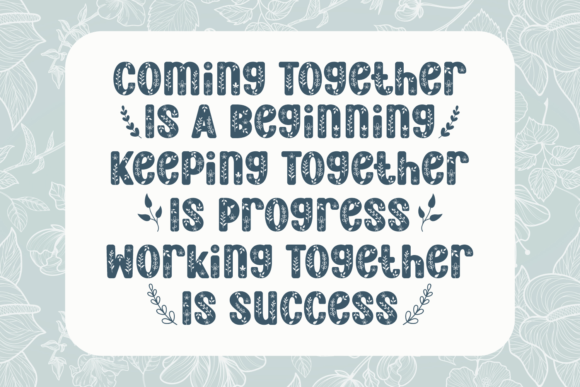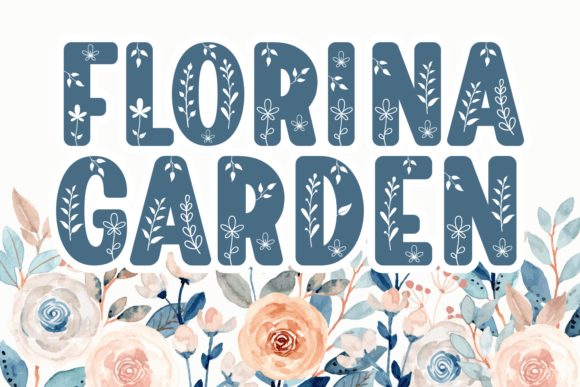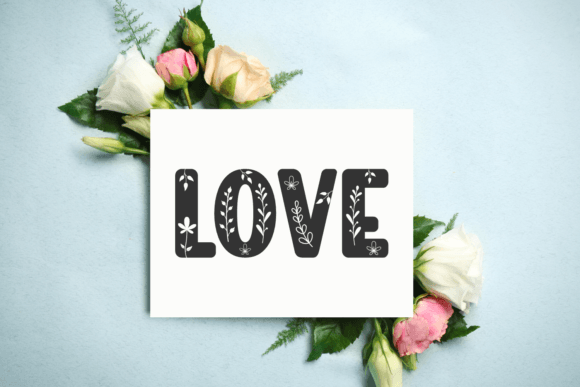
Introduction to Genta Lovena Font
Genta Lovena is a charming botanical-themed decorative font.
Create stunning designs with this lovely floral font These embellished characters are suitable for branding projects, fabric prints, crafts, digital typography, and more.
Key Features of Genta Lovena Font